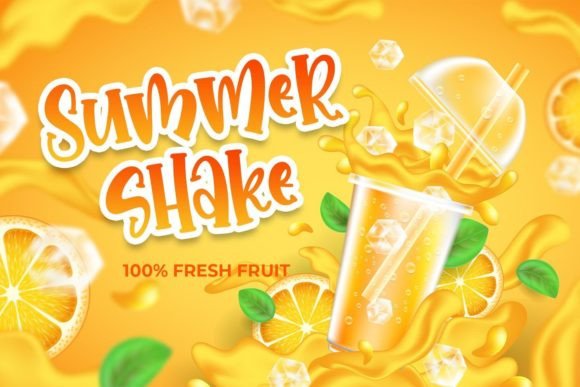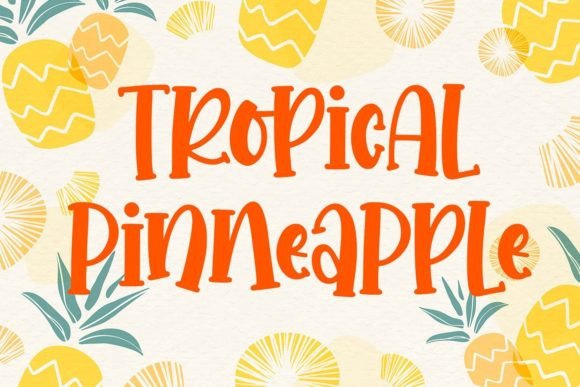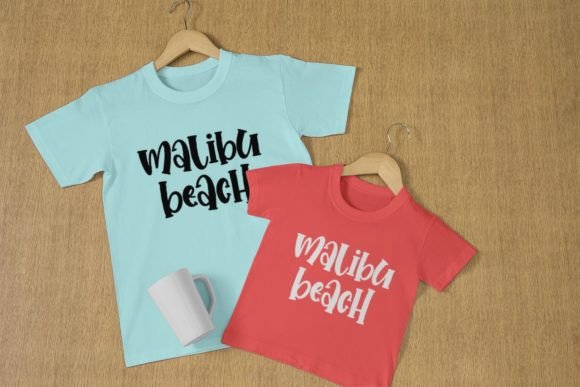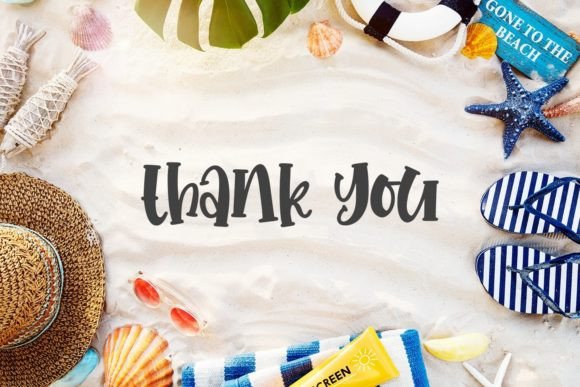
About Beach Story Font
“Beach Story” is more than just a font; it’s a fun and quirky creative tool that adds a playful and friendly touch to your designs. With its unique handwritten style and playful characters, this font injects a sense of joy and creativity into any project you can imagine. “Beach Story’s” versatility allows you to explore various design ideas, making it the perfect choice for adding a friendly and approachable vibe to your creative endeavors.
Imagine “Beach Story” in branding and logo design. Its playful and quirky elements create a memorable and distinctive brand identity. Whether it’s a logo for a beachside cafe, a children’s toy store, or a travel agency, this font infuses a sense of fun and friendliness. “Beach Story’s” playful characters ensure that your brand stands out, leaving a positive and lasting impression on clients and customers. The font’s unique style adds an element of creativity, making your brand approachable and engaging for your audience.
In social media graphics, “Beach Story” adds a pop of personality. Whether it’s used in Instagram posts, Facebook covers, or Twitter banners, this font creates visually appealing and shareable content. “Beach Story’s” fun and quirky design enhance the overall aesthetic, making your social media presence vibrant and engaging. The font’s playful vibe ensures that your messages are conveyed with a friendly and approachable tone, resonating with your audience and encouraging interaction.
For website design, “Beach Story” adds a touch of creativity. Imagine it in headlines, banners, or call-to-action buttons. Its playful and quirky style captures attention and creates a positive user experience. “Beach Story’s” friendly characters ensure that your website feels inviting and welcoming to visitors. The font’s creativity adds an element of surprise, making the website visually appealing and memorable for users.
In packaging design, “Beach Story” adds a sense of fun. Whether it’s on snack packaging, beverage labels, or children’s products, this font enhances the overall appeal. “Beach Story’s” quirky and playful elements create an enjoyable and delightful experience for consumers. The font’s unique style ensures that your packaging design stands out on the shelves, attracting customers and encouraging them to explore your products.
Moreover, “Beach Story” seamlessly integrates into various design applications, allowing you to experiment with colors, backgrounds, and creative elements. Its versatility ensures that it adapts effortlessly to your creative vision, enhancing the overall aesthetic of your projects and leaving a lasting impact on anyone who experiences them.
In summary, “Beach Story” is more than just a font; it’s a fun and quirky companion that adds a friendly and playful touch to your designs. Its unique handwritten style and playful characters make it suitable for a wide range of applications, from branding and social media graphics to website design and packaging. So, let “Beach Story” be your creative muse, bringing a cheerful and approachable vibe to your projects and captivating anyone who encounters them.